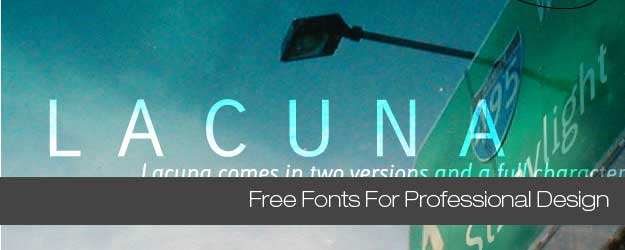
In this article tripwire magazine presents an overview of more than 75 excellent free fonts you should consider using for your designs.
Introduction
The importance of typography in design can’t be underestimated. The right choice of fonts can really help to deliver the message in a more direct and suitable way. In this article some of the very best Free Font available are just a click away!
The Fonts
Lacuna
Union
Echolot
PetitLatin
Advent Pro
A fresh, modern typeface coming in 7 weights — bold, bold extra, regular rounded, regular, regular oblique, light and light extra. Commercial work containing this typeface must include the reference to the author; personal projects don’t neccessary need to have a reference. The advanced version of the font can be purchased.
Ambrosia
Medium Condensed
Telegrafico
Synapse
Fonce Sans Regular
A sans-serif typeface that includes old style (hanging) numbers, a number of english and non-english lettering, some additional symbols and complete punctuation. This typeface is considered a Trial Version, in which certain letterforms have been replaced. Available only for non-commercial use as .otf. The advanced version of the font can be purchased.
SlabTallx
Pigiarniq Inuktitut font
Have you ever known about the existence of Nunavut? A small region in Canada with one of the lowest population rate of the world? Probably not. Only 0,01 people live there per km2, mostly Eskimo. The citizens of Nunabut speak four languages — French, English, Innuinaqtun and Inuktitut. Nothing spectacular so far, right?
Few years ago the government of the region has decided to design a new typeface to enable its 28.000 citizens to use all four languages in a uniform manner. The result is a beautiful, rich and professional sans-serif free font. The family includes a bold, heavy, italic, light and regular weights.
MUSEO
Delicious
Twenty one
Museo Sans
Museo Sans is based on the well-known Museo. It is a sturdy, low contrast, geometric, highly legible sans serif typeface very well suited for any display and text use.
Tallys
Tallys is a font that is one degree slanted and has large caps, a small x-height and long ascenders. It comes (see also Fontin) with hybrid numbers and a complete character set.
Anivers
The name Anivers derives from the word anniversary and was originally designed to celebrate the anniversary of Smashing Magazine. See some examples here.
Kontrapunkt
On October 22 2004 Kontrapunkt was awarded the Danish Design Prize for best typeface. The awarded typeface is our own corporate typeface ‘Kontrapunkt Light’, used in headers on this website and our printed material. The award was handed over by Crown Prince Frederik to creative director Bo Linnemann at a ceremony in Danish Design Centre.
Aardvark Cafe Font
Reminga
FF MT
Employing obscure but powerful techniques like vwl mmssn and cap reduction, FF Mt uses up to 50% less paper, screen, and wall space than other text faces without a single condensed letter.